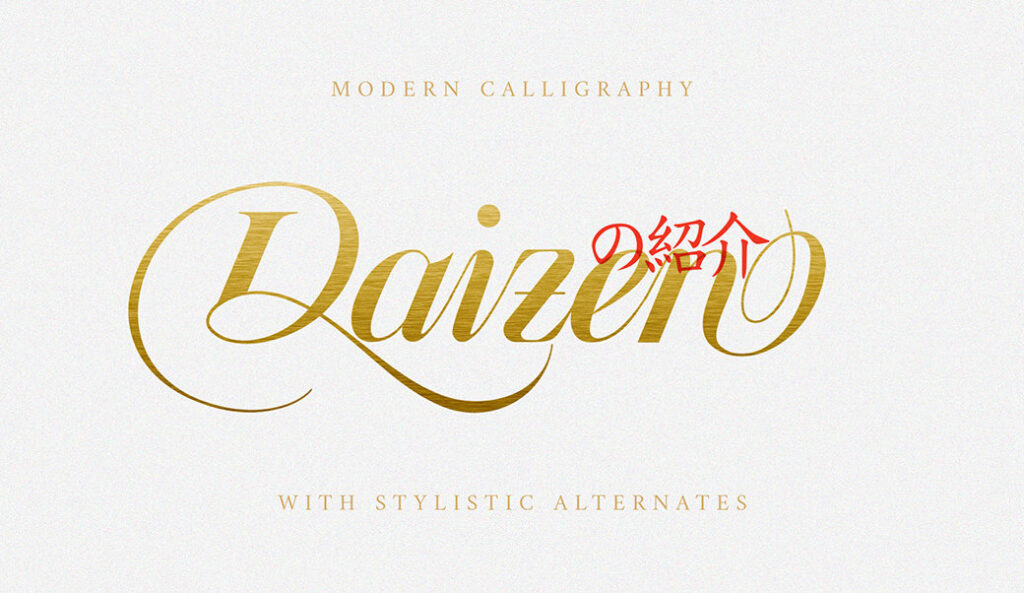
Free Daizen Script Font
Introduce Daizen Script Font by Tanzil Adduha.
Beautiful classic script with its cleanly looping ascenders and descenders, as well as elegant uppercase forms, represents a free-spirited typeface for a wide variety of use.
It works perfectly for creative projects like logotypes, T-shirts/apparel design, invitations, packaging, headlines, posters and greeting cards.